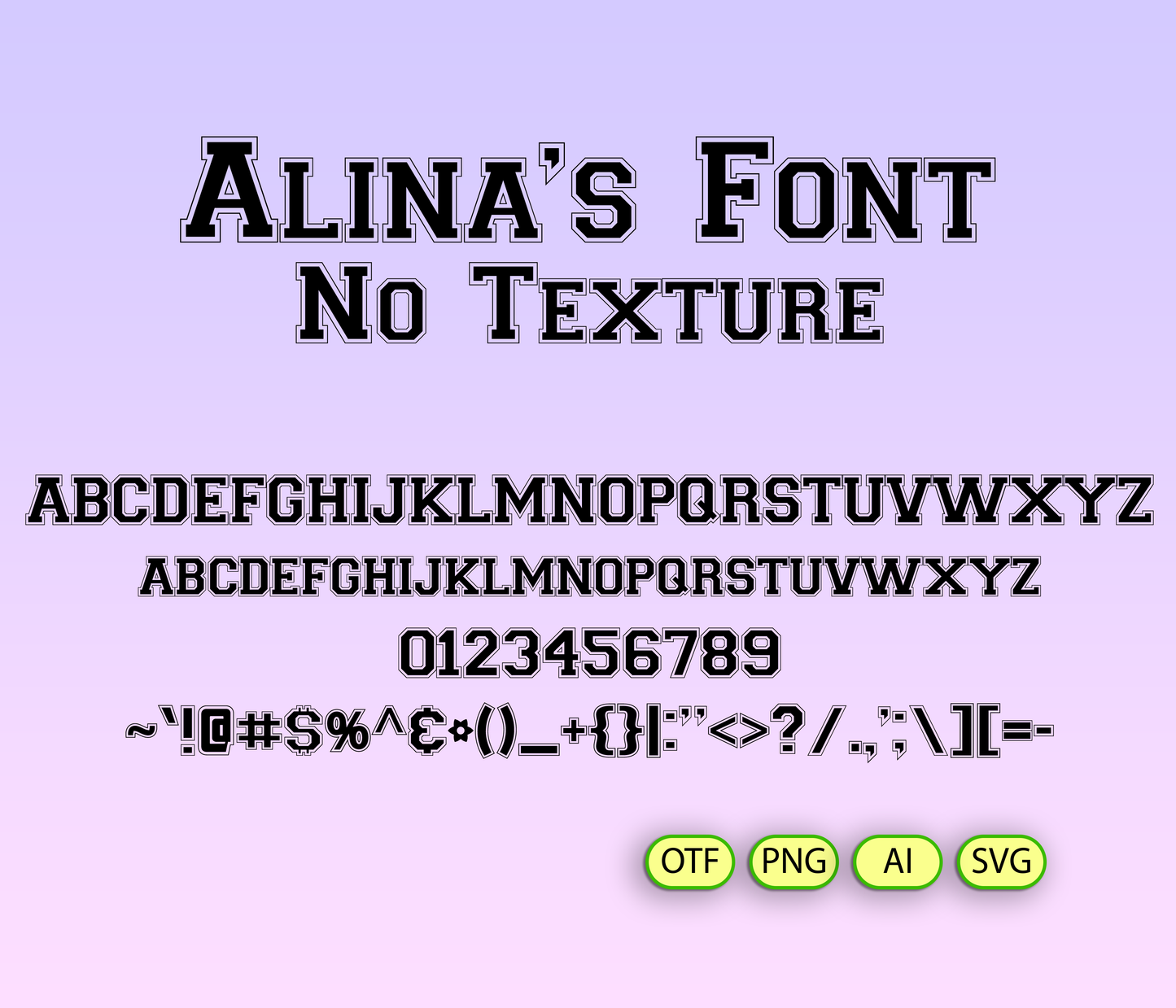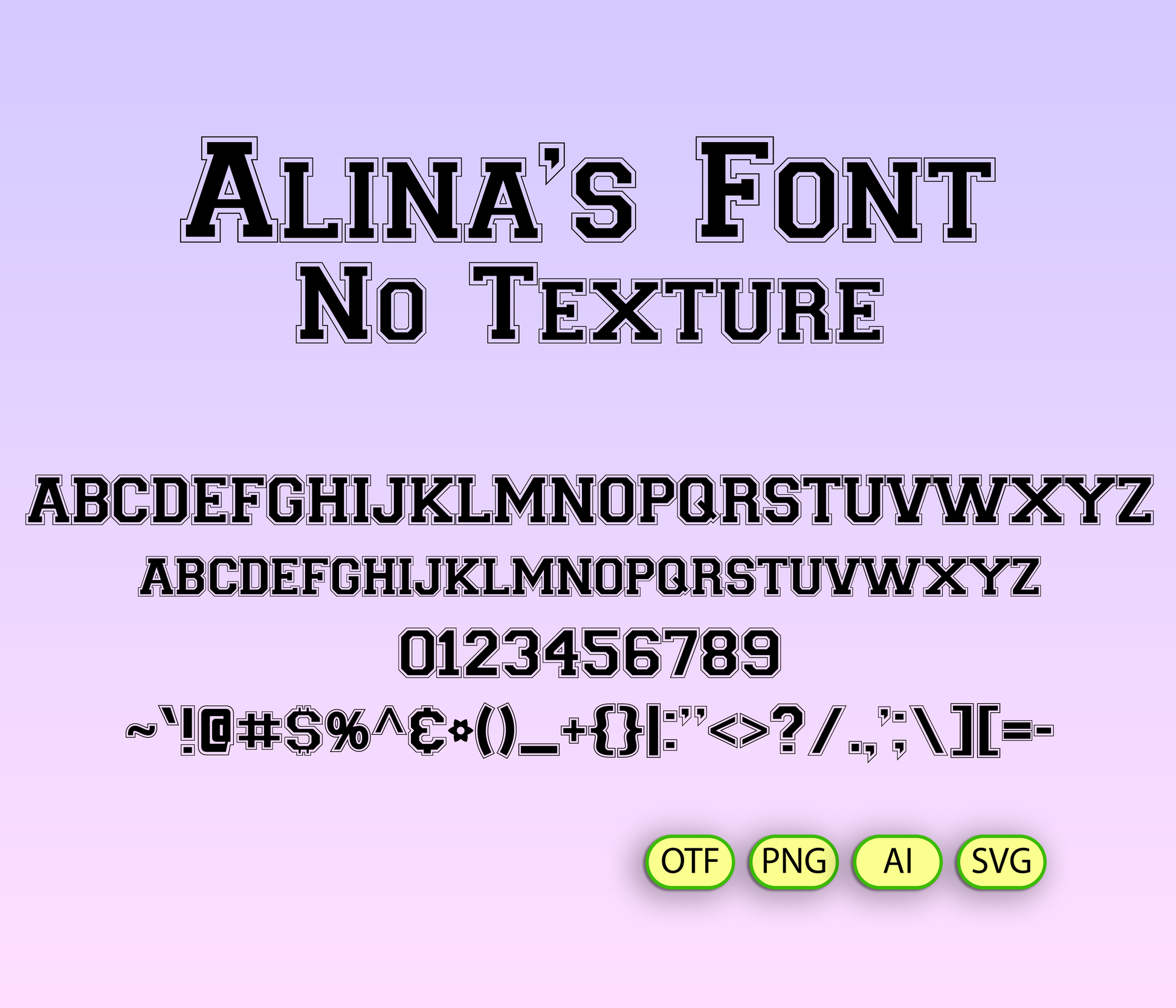
Scholarly Monsters Font
Step into the academic world of monster education with our specially designed font, capturing the essence of collegiate creatures and campus life. Perfect for educational content creators, event organizers, and designers, this font brings the prestigious, spirited atmosphere of monster learning to your projects. Create event invitations, themed merchandise, or digital content with the energetic vibe of monster academia.
Our Scholarly Monsters font features collegiate-style lines and academic characters reflecting the educational journey of aspiring monsters. Ideal for:
Our Scholarly Monsters font includes non-textured variants, ensuring compatibility with all software, including Canva. This feature allows easy incorporation into designs for users of all skill levels.
Our font pays tribute to monster higher education, empowering your designs with its academic and spirited essence. Whether crafting promotional materials, designing merchandise, or adding a collegiate touch to personal projects, this font communicates the prestigious essence of monster learning. Ready to inject campus spirit into your creations? This font is your key to scholarly, impactful design.